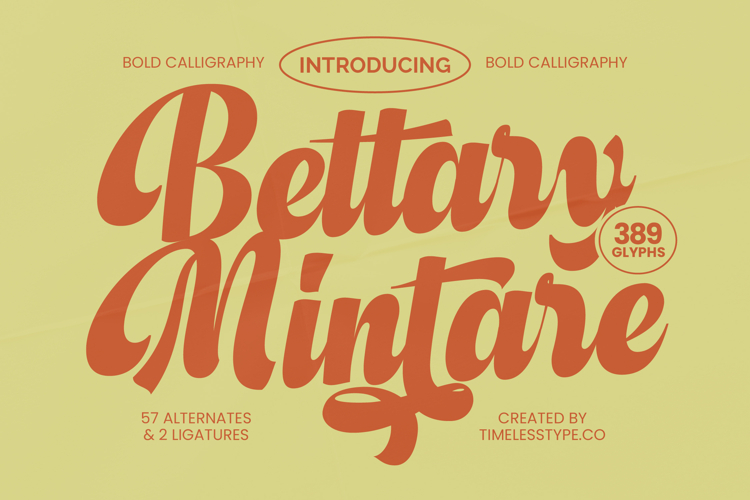
Bettary Mintare - Bold Calligraphy Font
Inject instant personality and dynamic flair into your next project with Bettary Mintare - Bold Calligraphy Font. This compelling script typeface merges the classic elegance of hand-drawn calligraphy with an assertive, contemporary boldness. The smooth, flowing curves and heavy strokes create an immediate visual presence, making it the perfect choice for designs requiring both impact and sophistication. It effortlessly channels a nostalgic yet current aesthetic that resonates strongly in modern markets.
Unlock unparalleled creative flexibility with an expansive character set designed for professional customization. Bettary Mintare - Bold Calligraphy Font includes an extensive range of 57 alternates and ligatures, providing designers with the tools necessary to simulate authentic, natural handwriting and craft unique, bespoke logotypes. This deep feature set ensures your typography never looks repetitive and always conveys a premium, high-end finish.
Go global without compromising design integrity or communication clarity. With its extensive multilingual support, Bettary Mintare - Bold Calligraphy Font adapts seamlessly across global markets, making it incredibly versatile for international projects. This crucial capability ensures that your message maintains its powerful, evocative style whether displayed in English, European, or other supported languages, providing global appeal.
Secure your brand identity with a font that demands attention. Bettary Mintare - Bold Calligraphy Font is perfect for high-impact applications such as luxury food and beverage packaging, vintage merchandise, bold editorial headlines, and sophisticated retro branding. Its striking aesthetic guarantees memorability and elevates product perception, positioning your design firmly within the premium market segment.